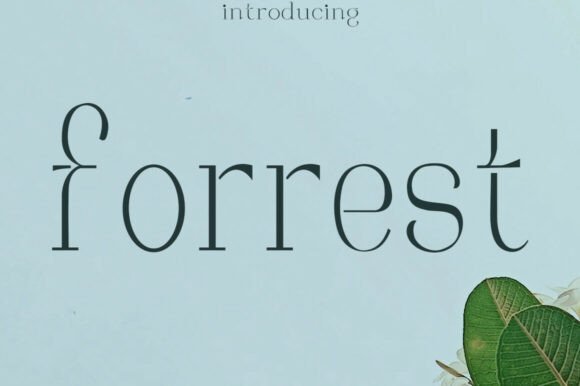
Introducing Forrest Font: Elevate Your Design with Classic Elegance and Modern Sophistication
In the world of typography, a well-crafted font can elevate a design from ordinary to extraordinary. For designers and crafters seeking a typeface that exudes luxury, professionalism, and artistic flair, look no further than Forrest Font. This serif typeface seamlessly blends classic elegance with a modern touch, making it an ideal choice for premium branding, logos, magazine headlines, product packaging, invitations, and editorial designs.
The Essence of Forrest Font
Forrest Font is characterized by its strong letterforms and refined serif details, which work in harmony to convey a sense of sophistication and refinement. The font’s balanced proportions and graceful curves ensure excellent readability, making it suitable for a wide range of applications. Whether you’re designing a logo, heading, or body text, Forrest Font is designed to enhance your visual identity with a timeless and stylish aesthetic.
Key Features of Forrest Font
• Classic Elegance: Forrest Font’s serif design pays homage to traditional typography, evoking a sense of heritage and luxury.
• Modern Touch: The font’s refined details and balanced proportions bring a contemporary feel to the classic serif design.
• Luxurious and Professional: Forrest Font is perfect for premium branding, logos, and editorial designs that require a sophisticated and high-end feel.
• Excellent Readability: The font’s clear and balanced design ensures that your message is conveyed with clarity and precision.
• Versatile: Forrest Font can be used for a wide range of applications, from magazine headlines and product packaging to invitations and editorial designs.
Applications of Forrest Font
Forrest Font’s versatility and sophistication make it an excellent choice for various design projects. Here are some ideal applications for this elegant typeface:
• Premium Branding: Establish a luxurious and professional brand identity with Forrest Font.
• Logos: Create a lasting impression with a custom logo designed using Forrest Font.
• Magazine Headlines: Add a touch of sophistication to your magazine’s headlines and feature stories.
• Product Packaging: Elevate your product’s packaging with a font that exudes luxury and refinement.
• Invitations: Create bespoke invitations for special occasions, such as weddings, galas, and corporate events.
• Editorial Designs: Enhance your editorial designs, such as books, articles, and blog posts, with a sophisticated and elegant font.
Tips for Using Forrest Font
To get the most out of Forrest Font, consider the following tips:
• Pair with contrasting fonts: Combine Forrest Font with a sans-serif font to create visual interest and hierarchy.
• Experiment with font sizes: Use Forrest Font in various font sizes to create a clear visual hierarchy.
• Pay attention to line spacing: Ensure that your text is easy to read by adjusting the line spacing to suit your design.
Forrest Font is a sophisticated and elegant serif typeface that offers a unique blend of classic elegance and modern sophistication. With its strong letterforms, refined serif details, and balanced proportions, this font is perfect for designers and crafters seeking to elevate their designs with a luxurious and professional feel. Whether you’re working on premium branding, logos, magazine headlines, product packaging, invitations, or editorial designs, Forrest Font is an excellent choice for adding a touch of refinement and style to your visual identity.